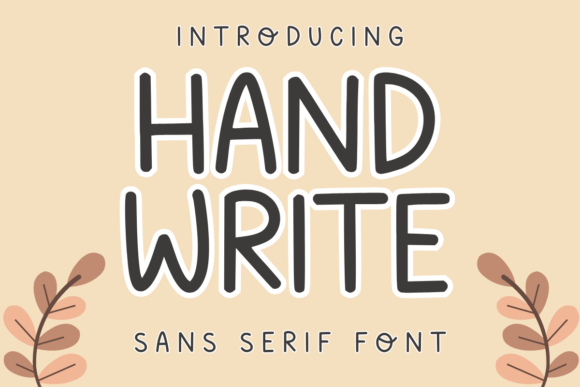
Getting Crafty with the Hand Write Font
Have you ever been rummaging through your favorite craft store, searching for the perfect font to match your creative vision? You spot a beautifully designed journal, and suddenly, your mind starts racing with ideas – stickers, scrapbooking, and custom planners. The perfect font is the missing piece to bring your project to life.
That’s where the Hand Write Font comes in – a delightful sans serif font with a playful, feminine touch that’s sure to capture your audience’s hearts. With its natural strokes and versatile design, it’s the perfect addition to any creative project. Whether you’re a designer, crafter, or simply someone who loves to express themselves, the Hand Write Font is an invaluable tool to have in your arsenal.
Key Features of Hand Write Font
- Unique Characteristics: This font features a distinctive, hand-written style with subtle imperfections and variations in letterform, giving it a personal and human touch.
- Language Support: Hand Write Font supports a wide range of languages, including Latin, Cyrillic, and Greek alphabets, making it a versatile choice for global designs.
- Font Weight: The font family includes light, regular, bold, and heavy weights, allowing designers to create a range of visual effects and emphasis.
Designer Review: Hand Write Font
Overall, I think the Hand Write Font is a great choice for designers who want to add a personal touch to their projects. ✨ It’s perfect for creating a handwritten feel that’s both elegant and approachable.
The font is highly customizable, allowing you to adjust the letter spacing, line height, and other parameters to get the desired look. ✨ It’s also available in a range of styles, from casual to formal, making it suitable for various applications.
While the Hand Write Font is great, there are some limitations to be aware of. ⚠️ Here are a few:
- It may not be suitable for large blocks of text, as it can become difficult to read.
- It can be challenging to maintain consistency in the font’s appearance across different sizes and resolutions.
Despite these limitations, I think the Hand Write Font is a valuable addition to any designer’s toolkit. It’s a versatile and creative solution that can help you stand out from the crowd.
To get the most out of the Hand Write font, use it for creative projects such as invitations, posters, and social media graphics. It’s also great for adding a personal touch to resumes and business cards. Experiment with different font sizes and colors to create a unique look.
Common use cases for the Hand Write font include:
- Event signage and banners
- Social media graphics and posts
- Personalized gifts and cards
Alternatives to Hand Write Font
Lobster Font is a fun, cursive font that is great for adding a playful touch to your designs. It is perfect for use in social media, blog posts, and other digital content where a casual, friendly tone is desired. Compared to Hand Write Font, Lobster Font is more informal and relaxed, making it suitable for everyday use.
Can I customize Hand Write Font to fit my specific design needs?
Yes, Hand Write Font can be customized using various design software tools, such as font editors and graphics editors. You can adjust the font’s size, color, and spacing to fit your specific design needs. Additionally, some design software may offer advanced features, such as font manipulation and styling, to further customize the font.